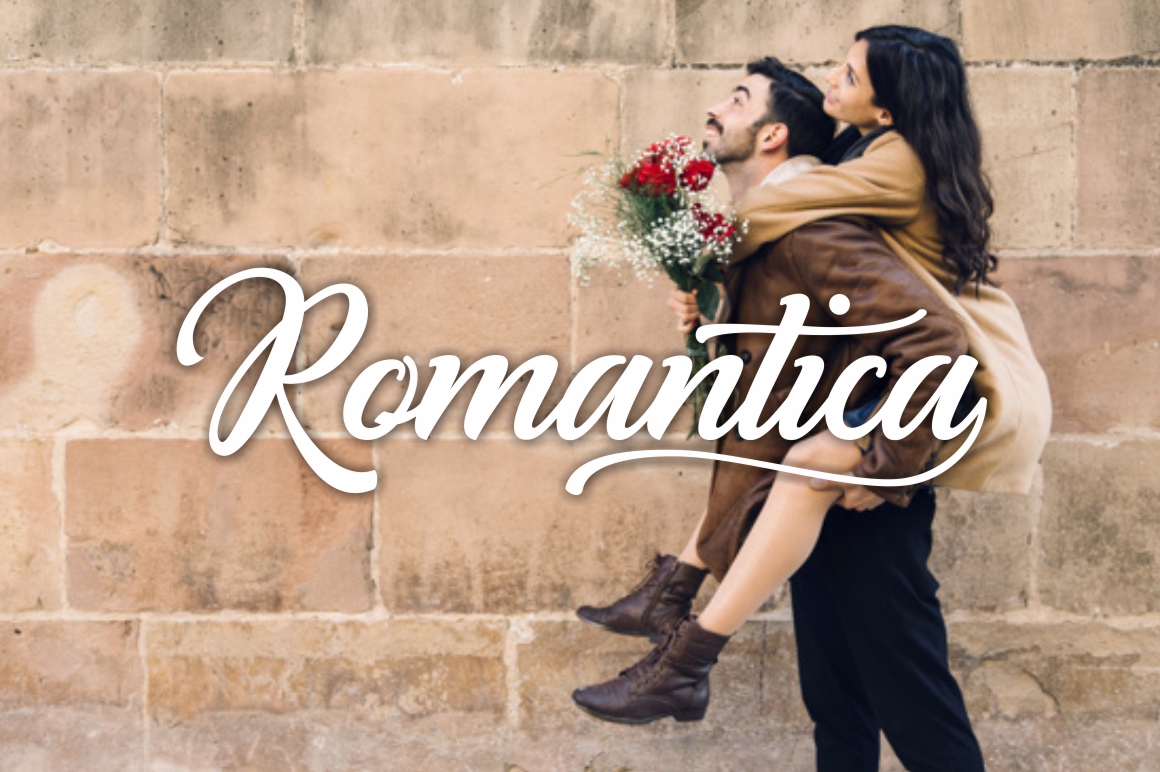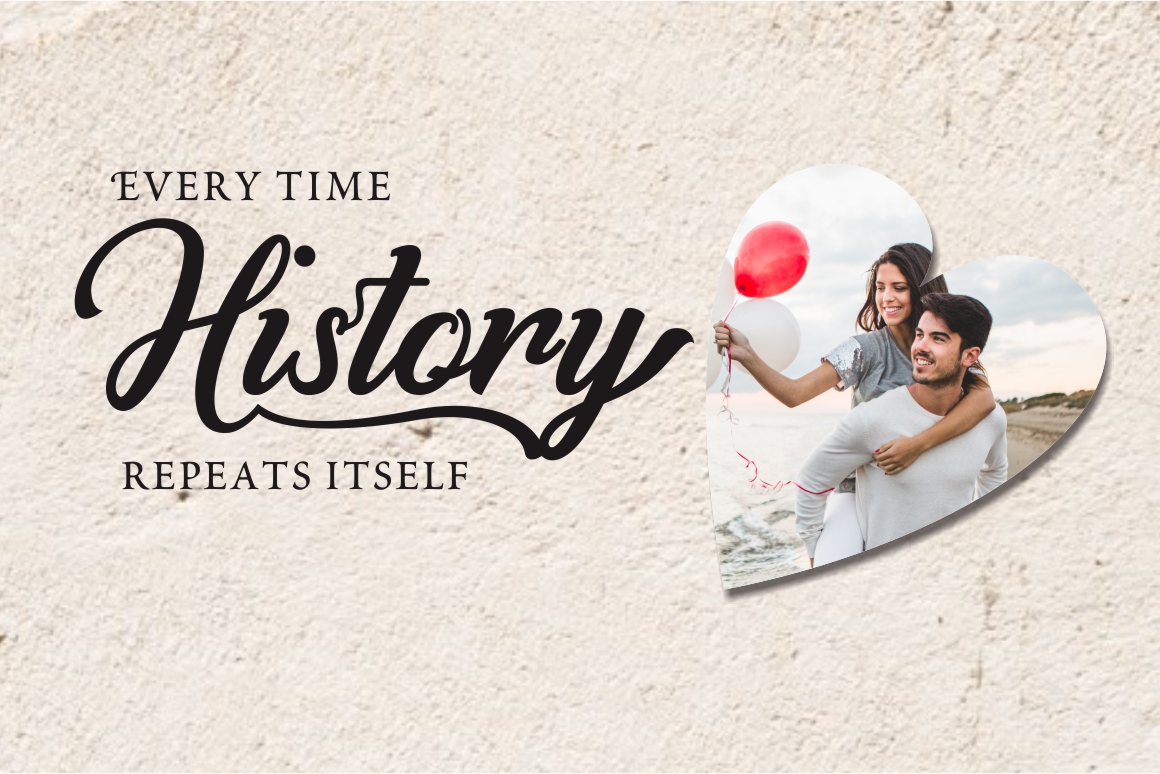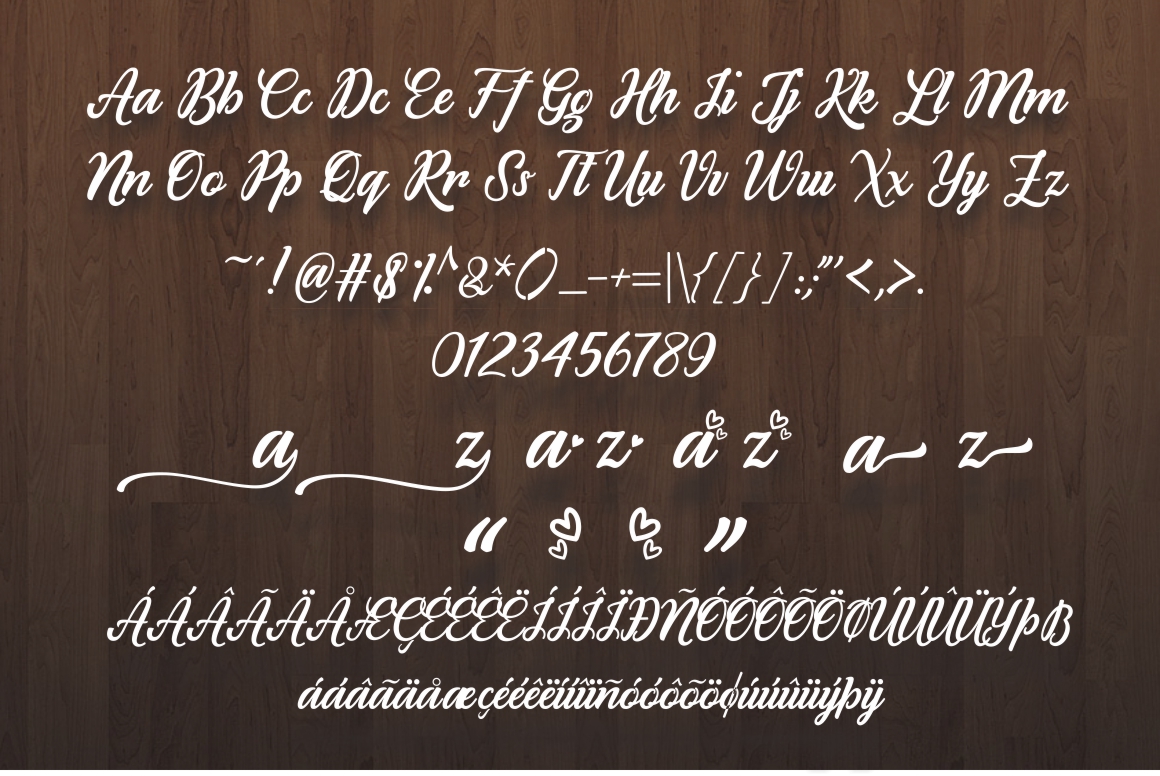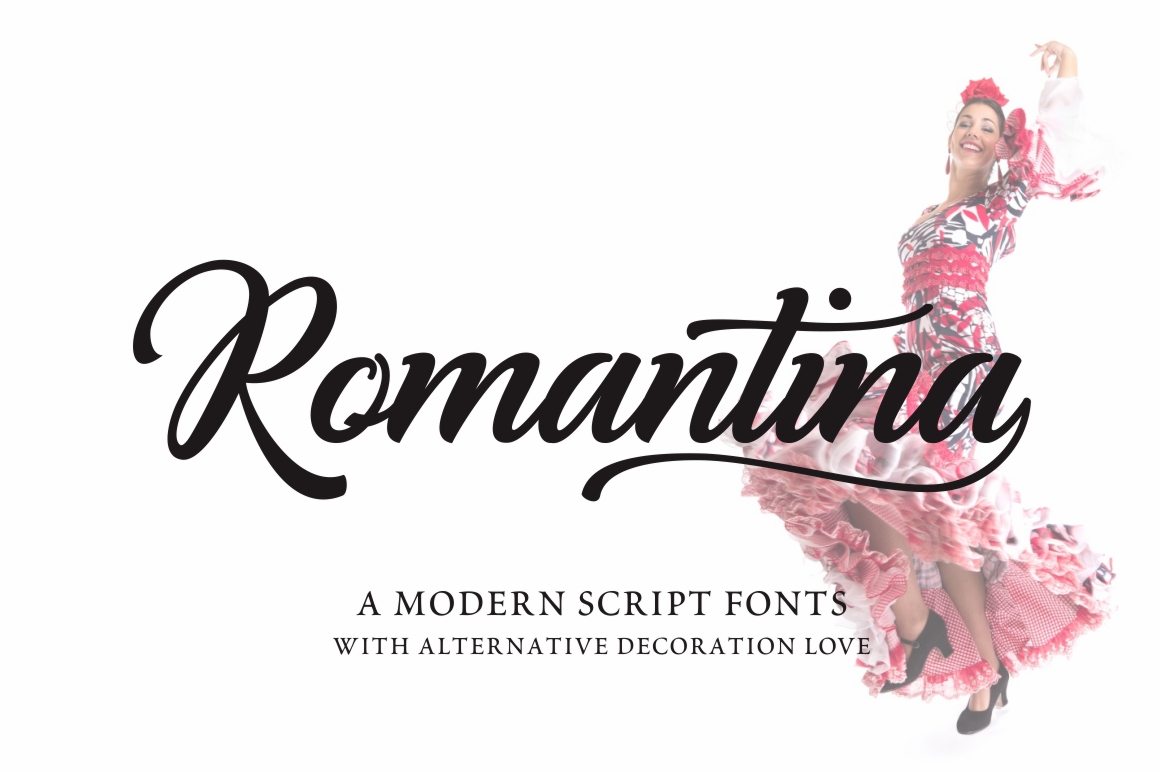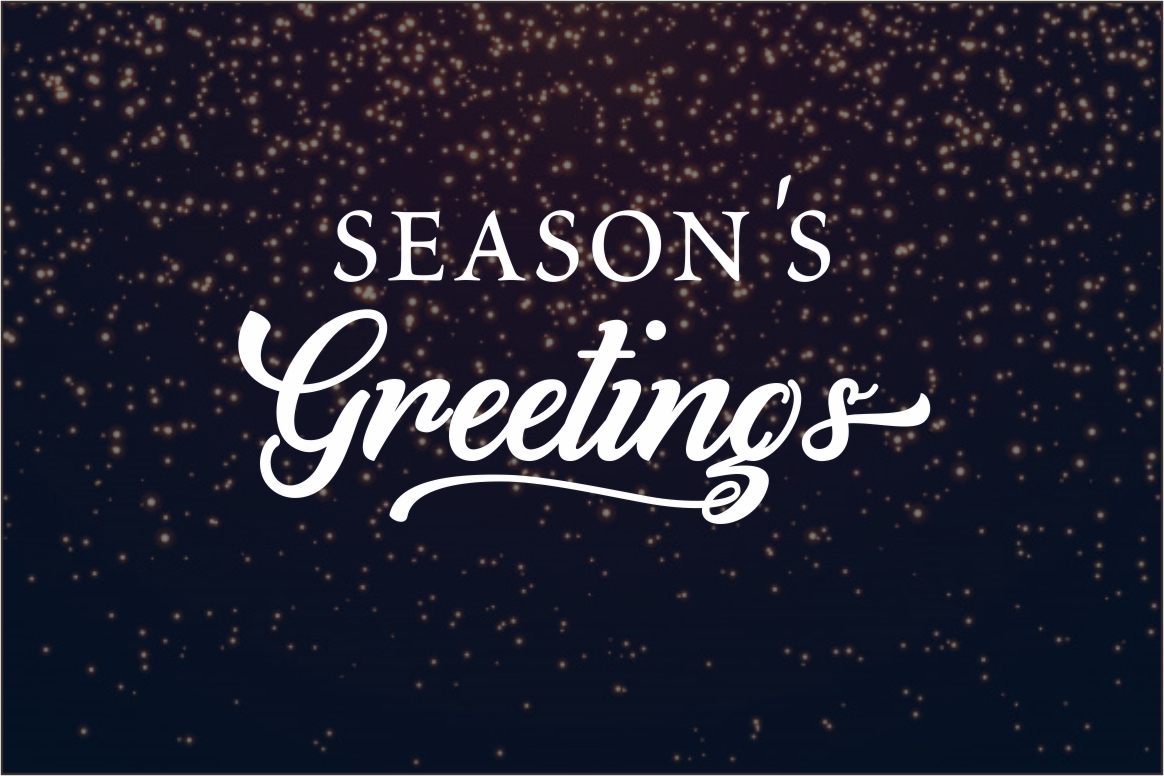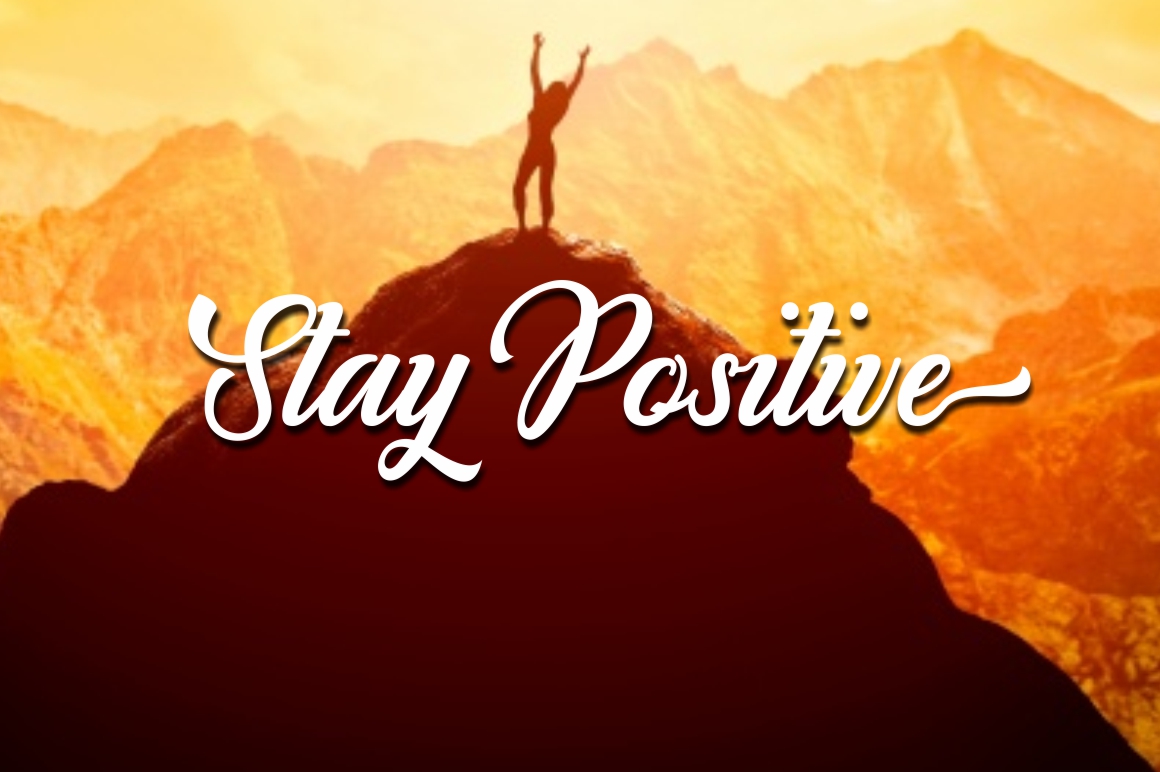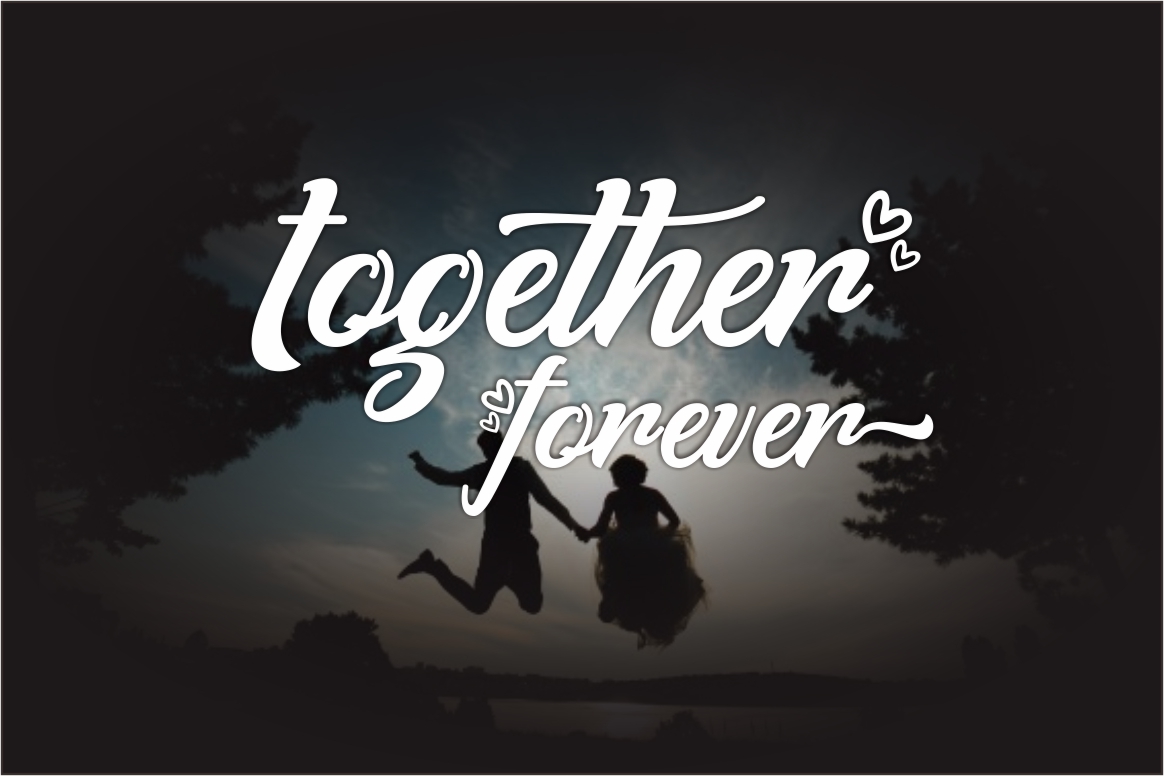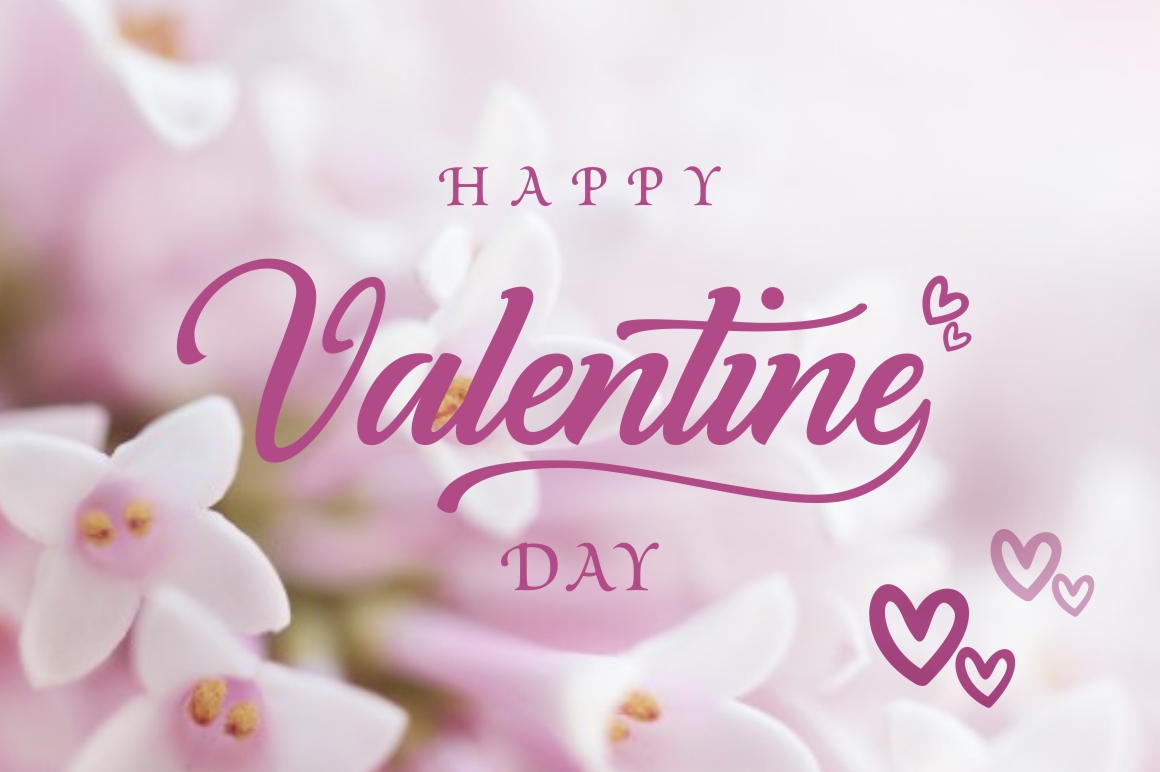
Romantina Font
Romantina is a stunning calligraphy script, designed in a modern style so that you can always have beautiful and elegant typographic designs. This font is a great way to anchor your romantic and special occasion designs.